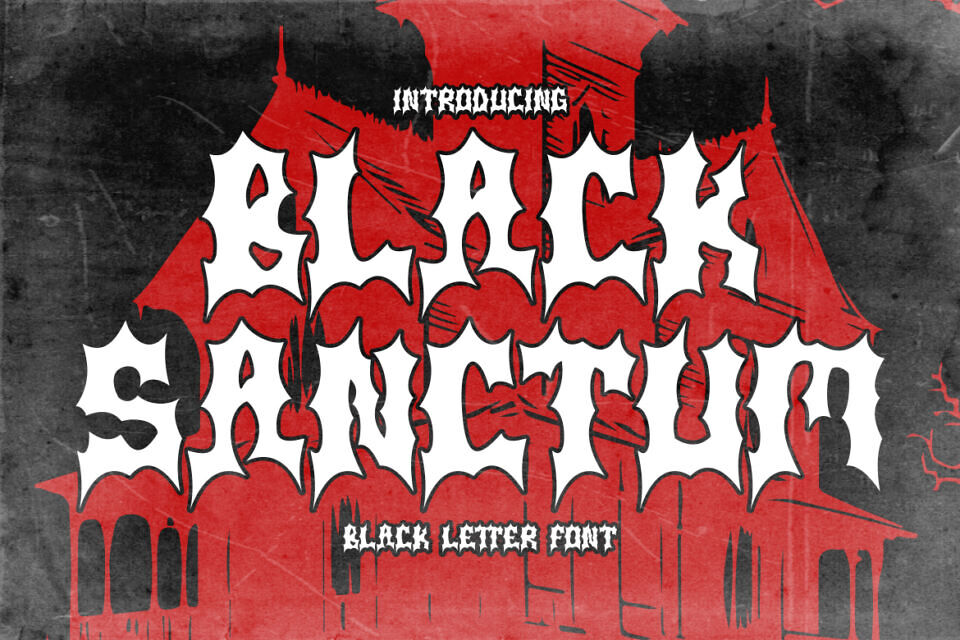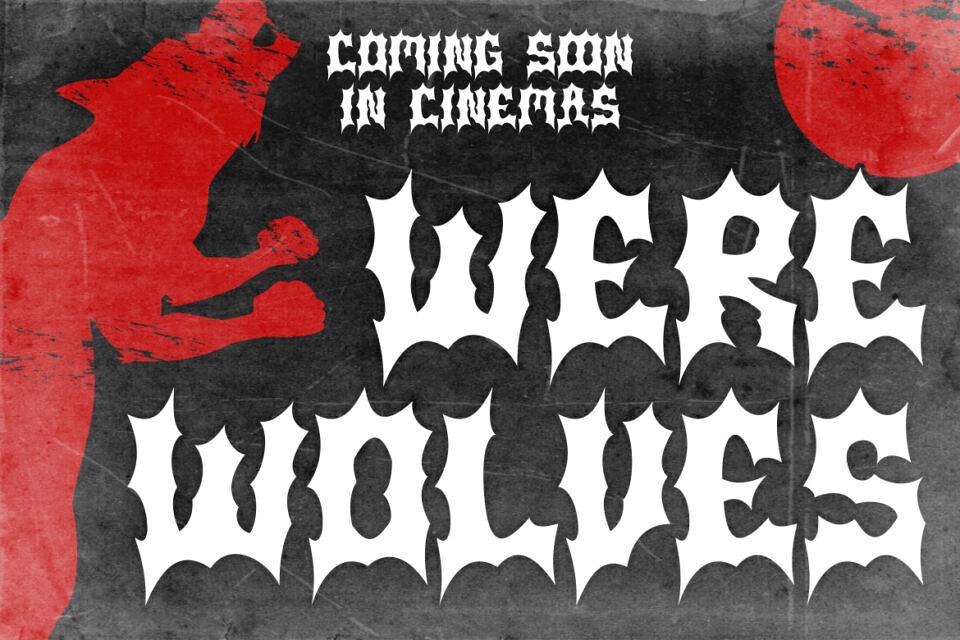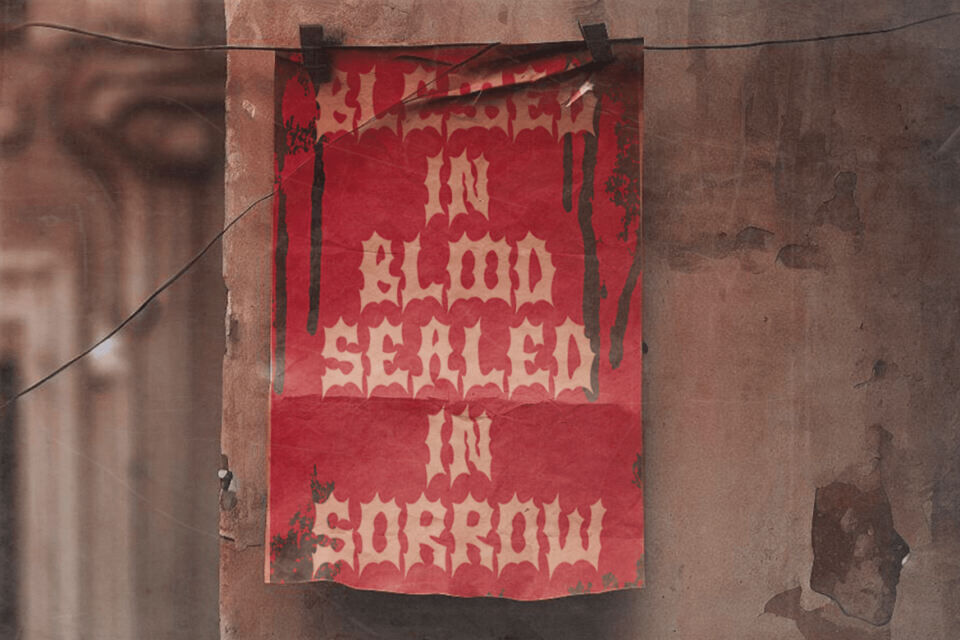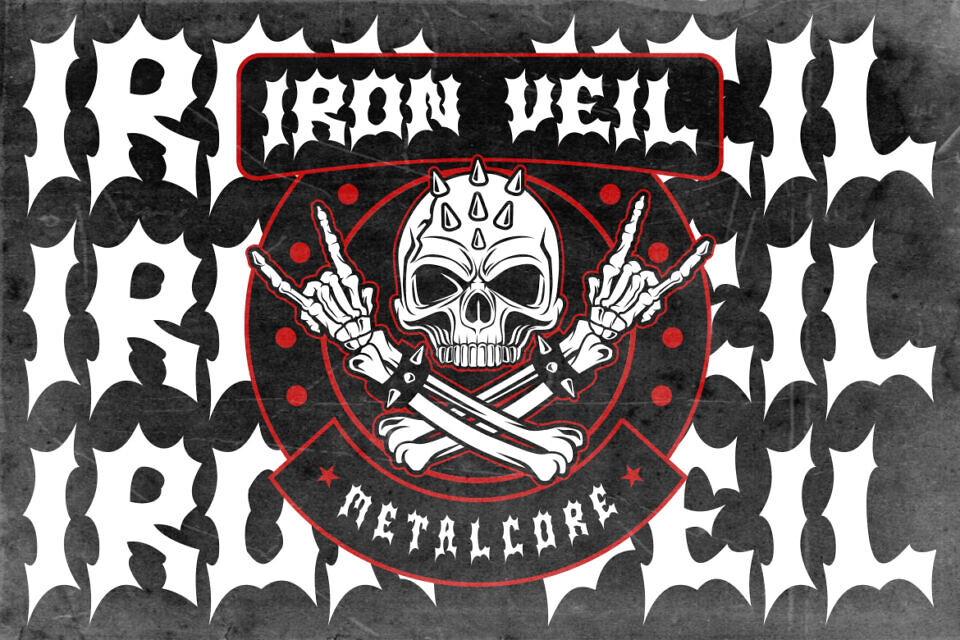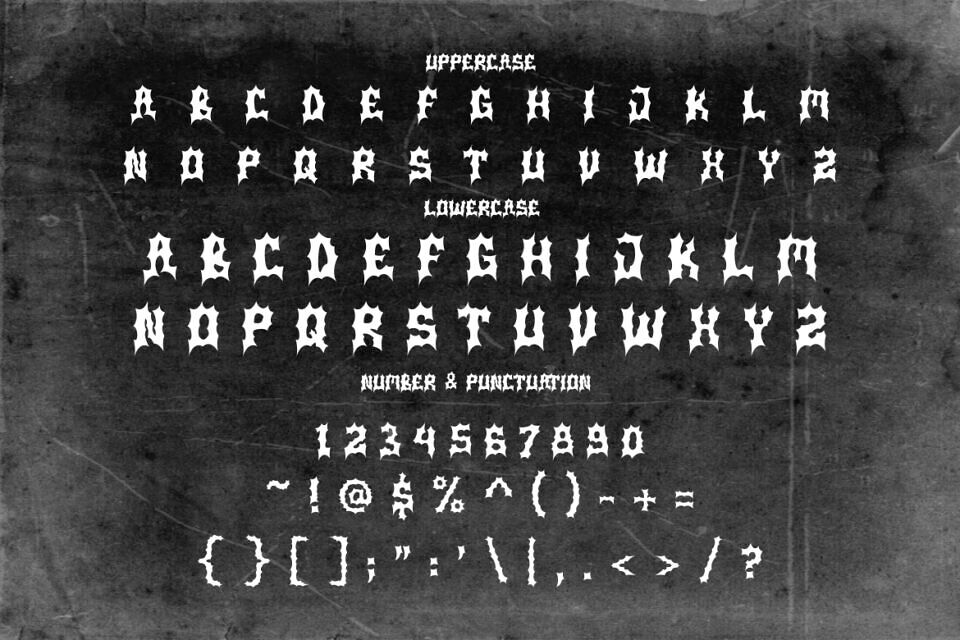
Black Sanctum Font
Enter the abyss of gothic expression with Black Sanctum, a blackletter display font drenched in horror and forged for the bold. This typeface commands attention with razor-sharp serifs, exaggerated curves, and medieval undertones, making it the ultimate visual for metal album covers, horror posters, occult branding, or underground event flyers.
Each glyph drips with dramatic tension, blending classic fraktur forms with a brutalist edge. From the uppercase’s baroque intimidation to the lowercase’s symmetrical decay, Black Sanctum manifests the perfect balance of aesthetic menace and functional legibility.
Optimized for striking headlines and branding that thrives on contrast and rebellion, this font excels in dark-themed design work—be it movie titles, gaming graphics, merchandise, or heavy-metal zines. Its grungy layout adaptability and vintage blood-red palette make it an indispensable tool for designers crafting dystopian, retro-horror, or metalcore-inspired visuals.